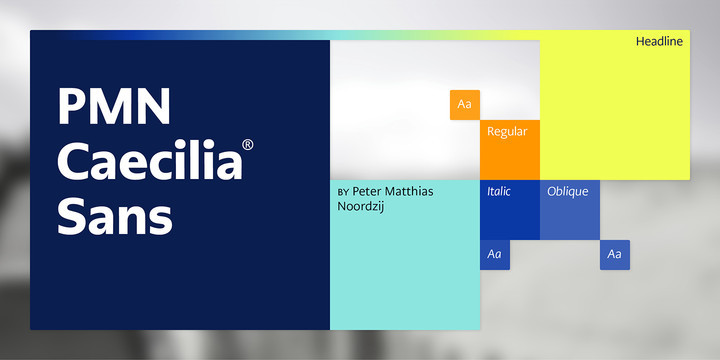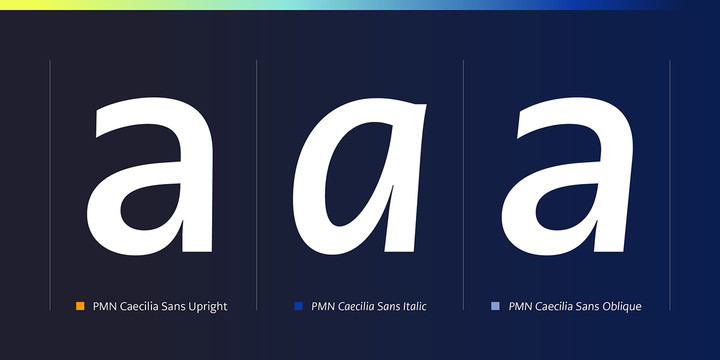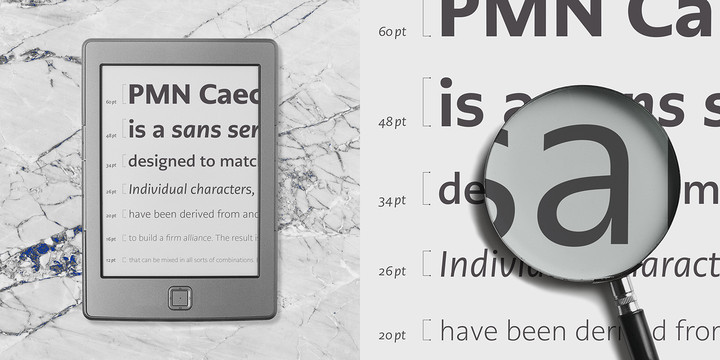
PMN Caecilia Font
Few projects are outside the range of PMN Caecilia® Sans. Drawn specifically for on-screen imaging, the family benefits from a large suite of weights, each with several stylistic variations. This is a design ideally suited to building digital interfaces, complex websites, apps, games, kiosks, HTML ads and large-scale brand identities. “My goal was to create a, friendly, versatile, ageless, yet discerning typeface family that will serve the needs of many users,” says Peter Matthias Noordzij. the typeface’s designer. “It is not intended to be eye-catching, but generous: enabling numerous visual and typographical expressions.”